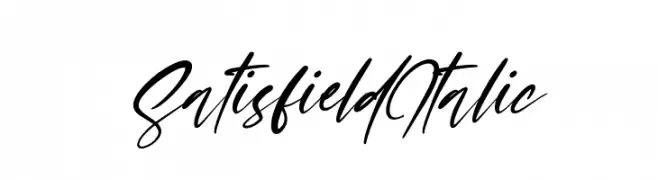
A fluid and elegant script font with a handwritten appearance and italic slant.
An elegant, cursive font with intricate flourishes and sweeping curves.
A dynamic, cursive font with fluid, connected strokes and a modern, artistic style.
A bold, italic script font with dynamic and flowing characters.
A bold, italic font with a dynamic and elegant style.
A fluid and elegant handwritten font with a personal touch.